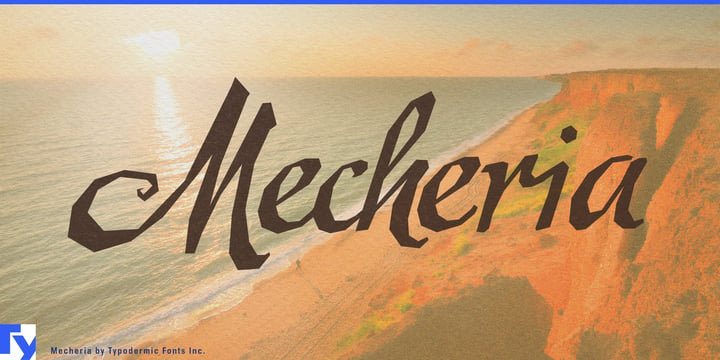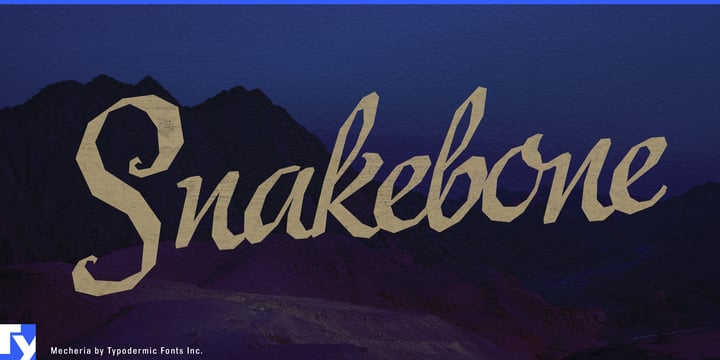
About Mecheria Font Family
Intricate and alluring, Mecheria transports you to a world of mystique and intrigue with its angular design and sensual swashes. This captivating typeface is both enigmatic and exotic, with a hint of gothic allure that beckons you closer. Its gentle curves are subtly rounded, yet filled with a tantalizing energy that leaves you breathless.
With its connected script style, Mecheria flows seamlessly from letter to letter, creating a sense of fluid motion that draws you in. Each stroke of the pen is deliberate and precise, conveying a sense of luxury and sophistication that is unmatched by other typefaces.
Inspired by the timeless elegance of the Amanda typeface from 1939, Mecheria is a work of art in its own right. It captures the essence of a bygone era, evoking a sense of nostalgia and longing for a simpler time.
In the world of graphic design, Mecheria is a font that stands out from the crowd. Its angular design and sensual swashes make it perfect for luxury brands, high-end products, and exclusive events. So why settle for anything less than the best? Choose Mecheria and elevate your designs to new heights of elegance and sophistication.
Designers: Ray Larabie
Publisher: Typodermic
Foundry: Typodermic